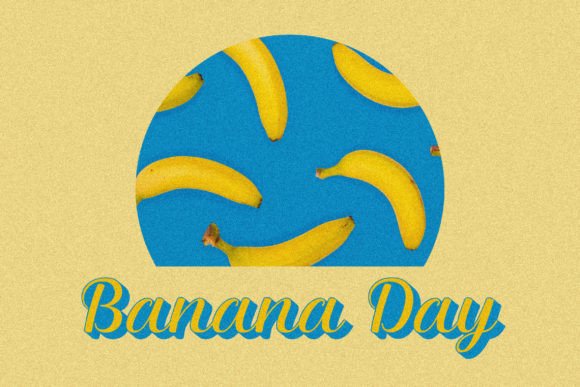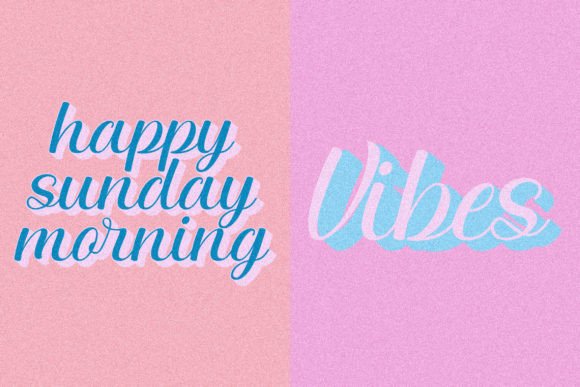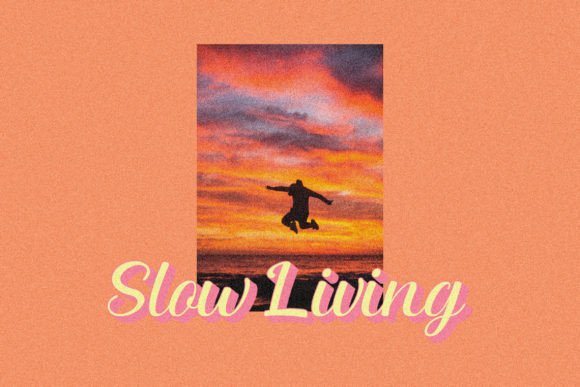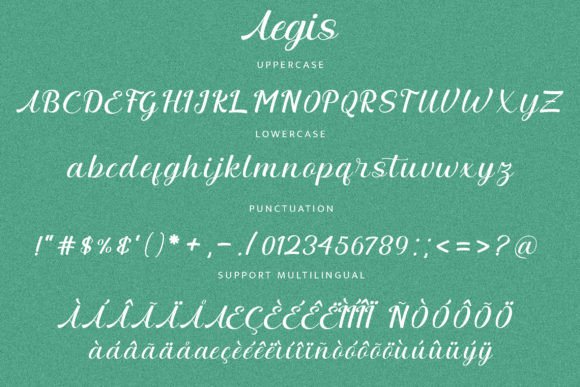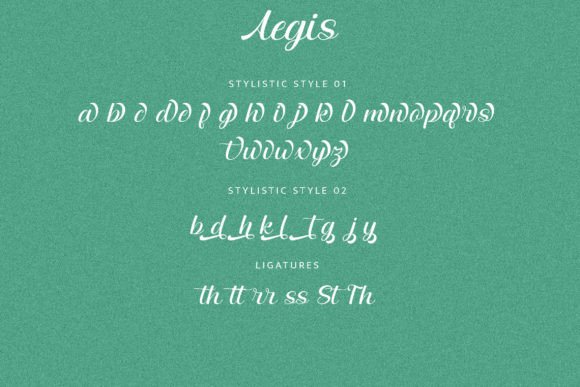
The Aegis Font: A Modern Handwritten Classic for Your Designs
I’ll never forget the struggle I faced while working on a branding project for a small business. My client wanted a font that was both modern and nostalgic, but I was coming up blank. That’s when I stumbled upon the Aegis font, and it instantly became the perfect fit. In this article, I’ll share my experience with Aegis, its features, and how to make the most of it in your designs.
A Personal Review of Aegis Font
What I Love About Aegis ✨
- ✅ Clean Vintage Style: Aegis brings a perfect blend of modernity and vintage charm, making it versatile for various design projects.
- ✅ Nostalgic Feel: The handwritten style of Aegis evokes a sense of nostalgia, ideal for brands looking to establish an emotional connection with their audience.
- ✅ Highly Legible: Despite its artistic nature, Aegis remains highly legible, even at smaller sizes, making it practical for a wide range of applications.
- ✅ OpenType Features: Aegis supports OpenType features, including glyphs and stylistic alternates, which can elevate your designs with unique touches.
- ⚠️ Limited Use in Serif-Heavy Designs: Aegis, being a handwritten font, might not be the best fit for designs that heavily feature serif fonts. It’s all about balance and contrast.
- ⚠️ Requires Attention to Spacing: For optimal results, you might need to adjust the spacing between letters, especially in larger text sizes or headings.
The Story Behind Aegis: Designer Inspiration
Aegis was inspired by the classic typography of the early 20th century, blended with modern sensibilities. The designer aimed to create a font that felt both nostalgic and fresh, capable of standing out in today’s design landscape. The result is a versatile font that can be used across various platforms and design projects.
| Is Aegis suitable for body text? | While Aegis is highly legible, it’s primarily designed for headings and titles. For body text, consider using a more traditional serif or sans-serif font for better readability. |
Aegis is more than just a font; it’s a design companion that brings a touch of nostalgia and modernity to your projects. With its clean vintage style and versatile nature, Aegis can elevate your branding, logos, posters, and more. Experiment with its OpenType features, explore its potential in various design platforms, and let Aegis become a part of your creative journey.